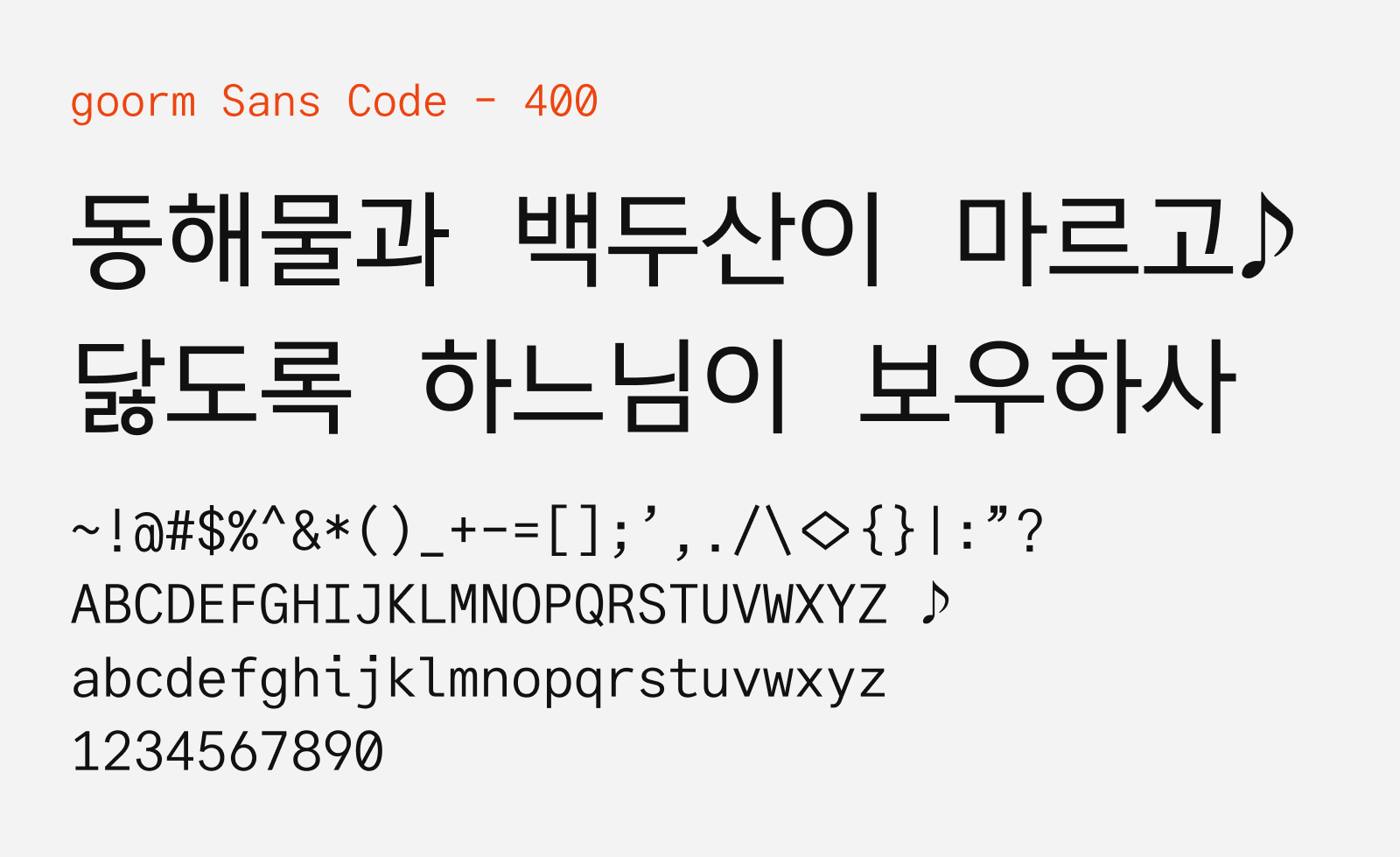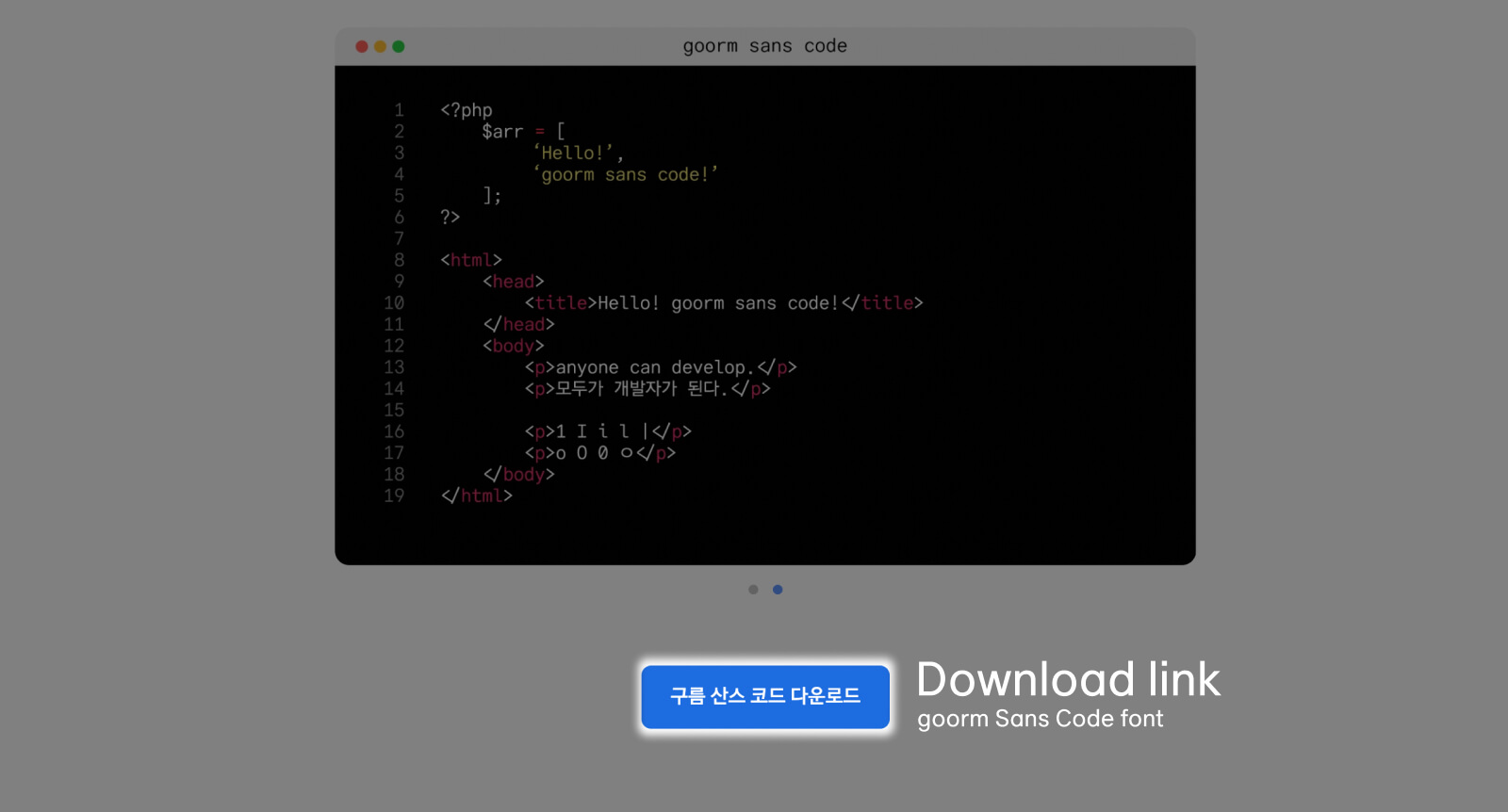
goorm Sans Code
goorm Sans Code (구름 산스 코드) is a monospaced font designed for coding purposes for Korean-speaking developers in mind. It was developed by goorm (구름), the Korean cloud-based developer education platform, that also released goorm Sans for free. What make goorm Sans Code unique is the Korean language support. It allows consistent spacing ratio between Korean and Latin characters, keeping code visually clean and easy to the eye regardless of which language been written in.